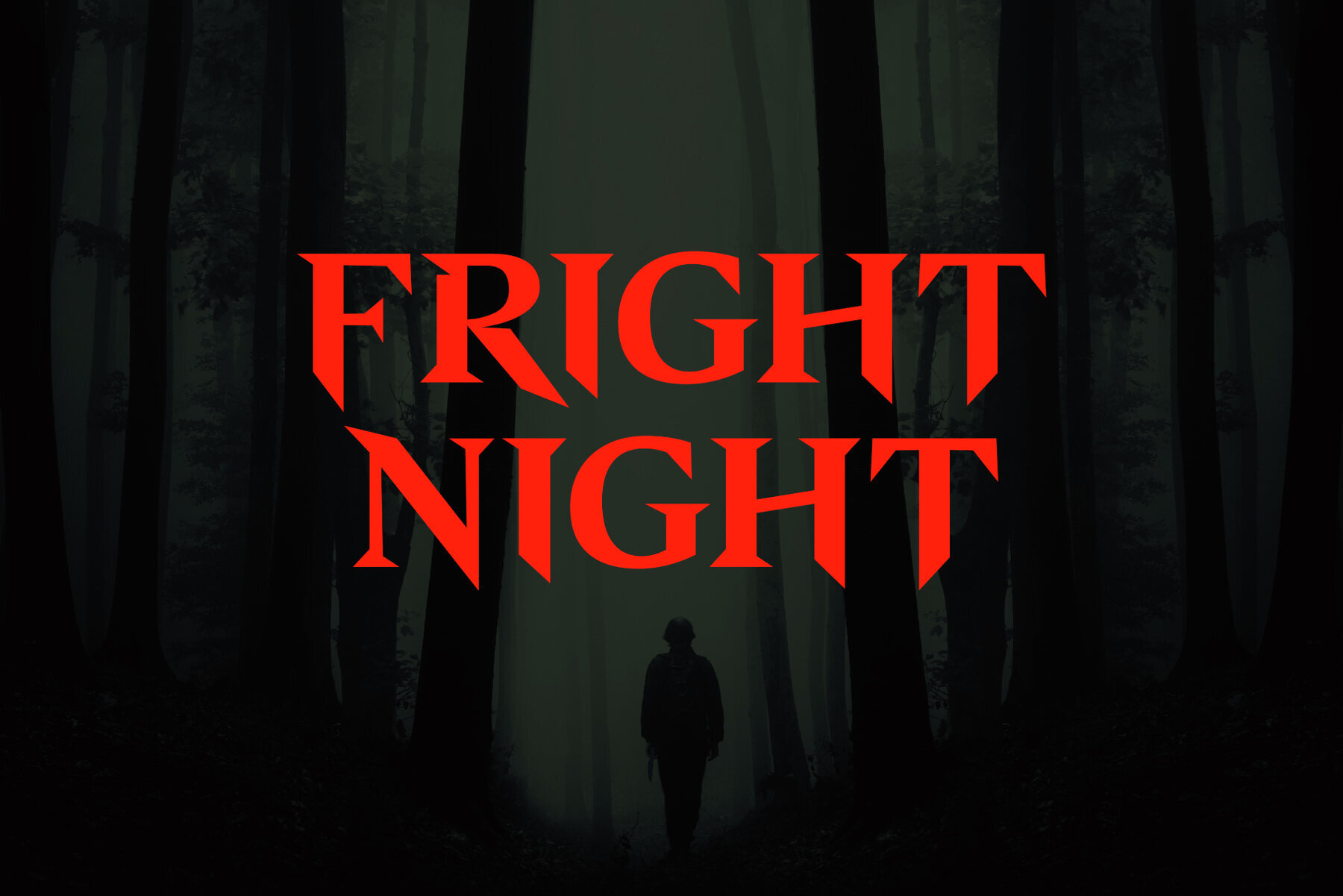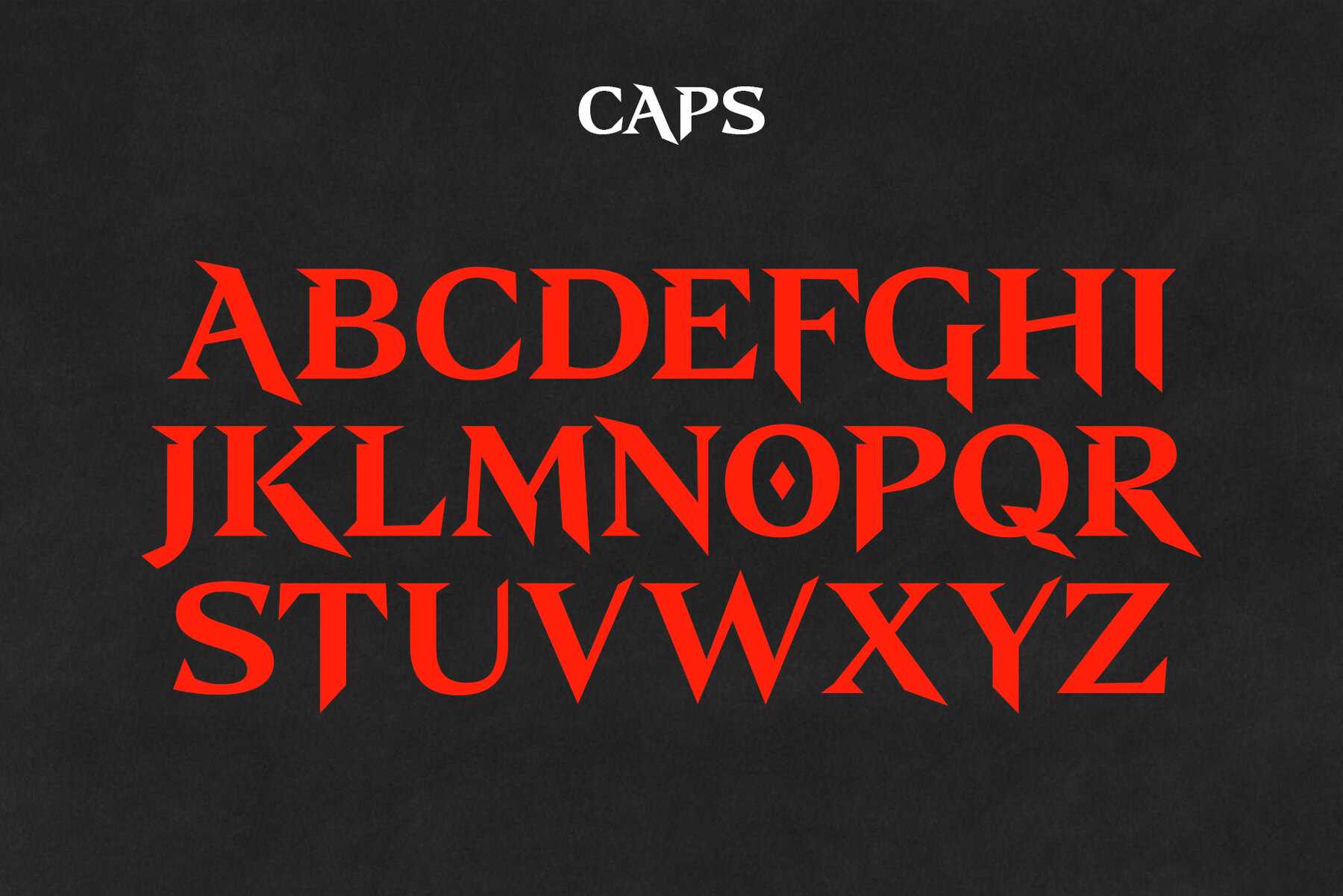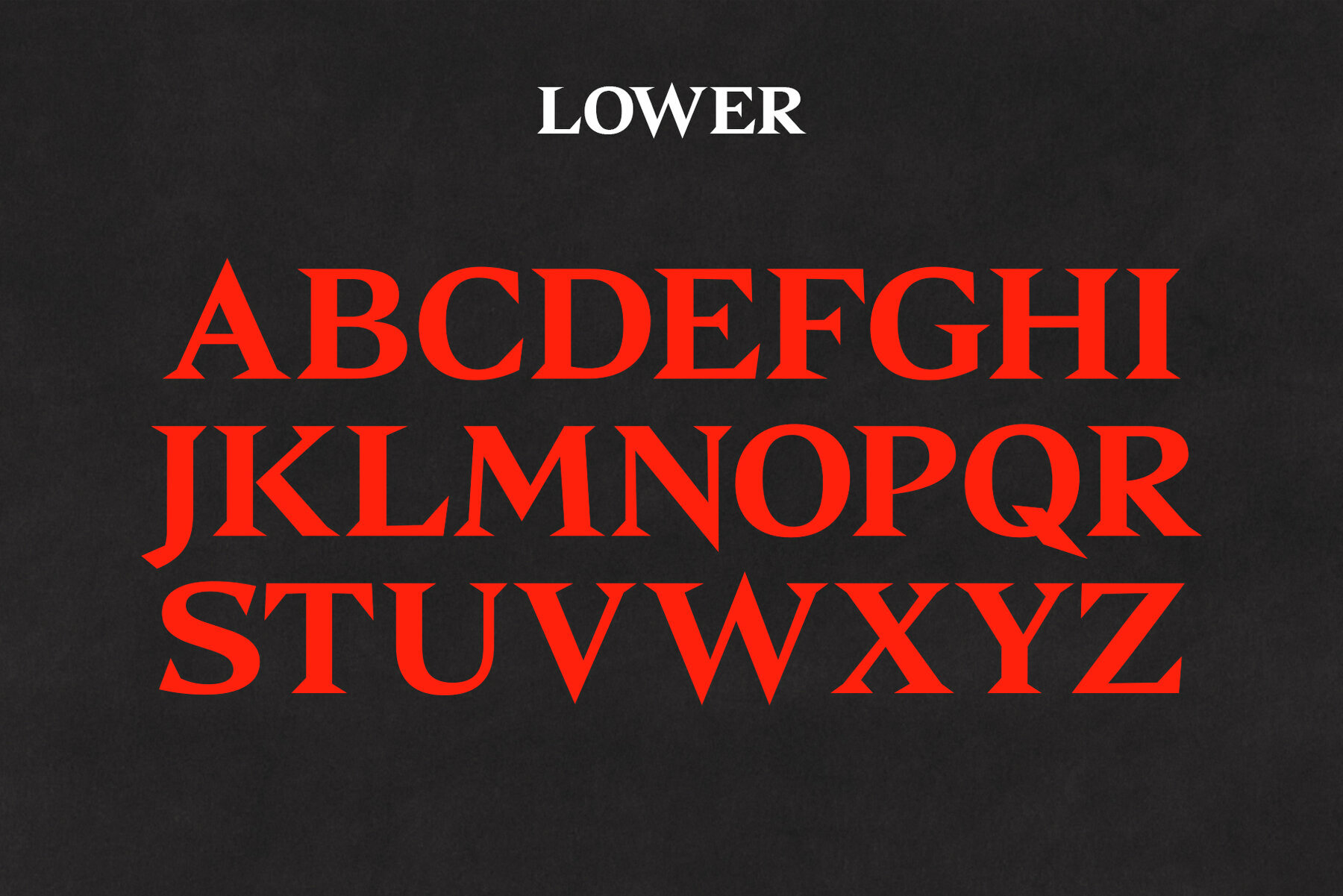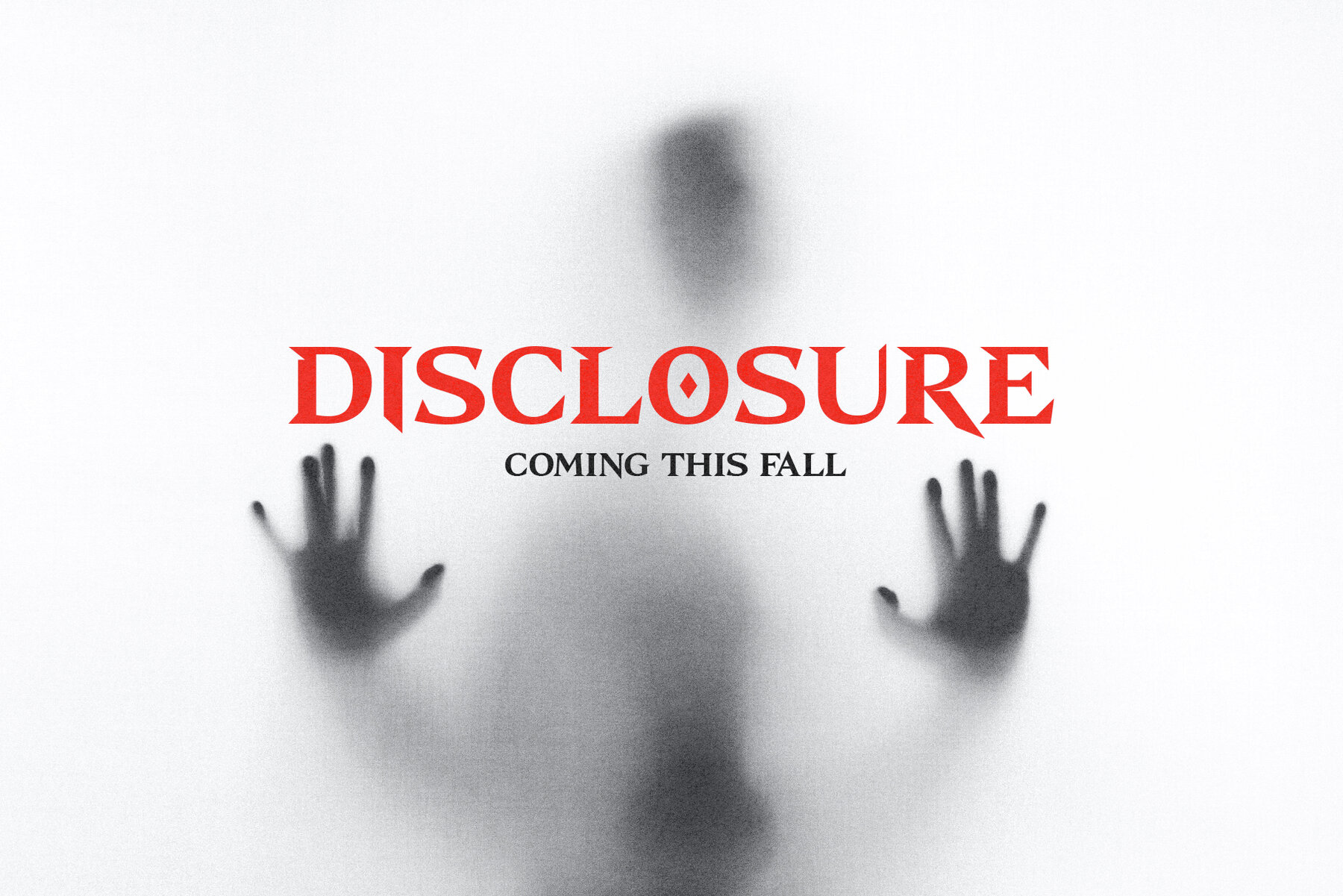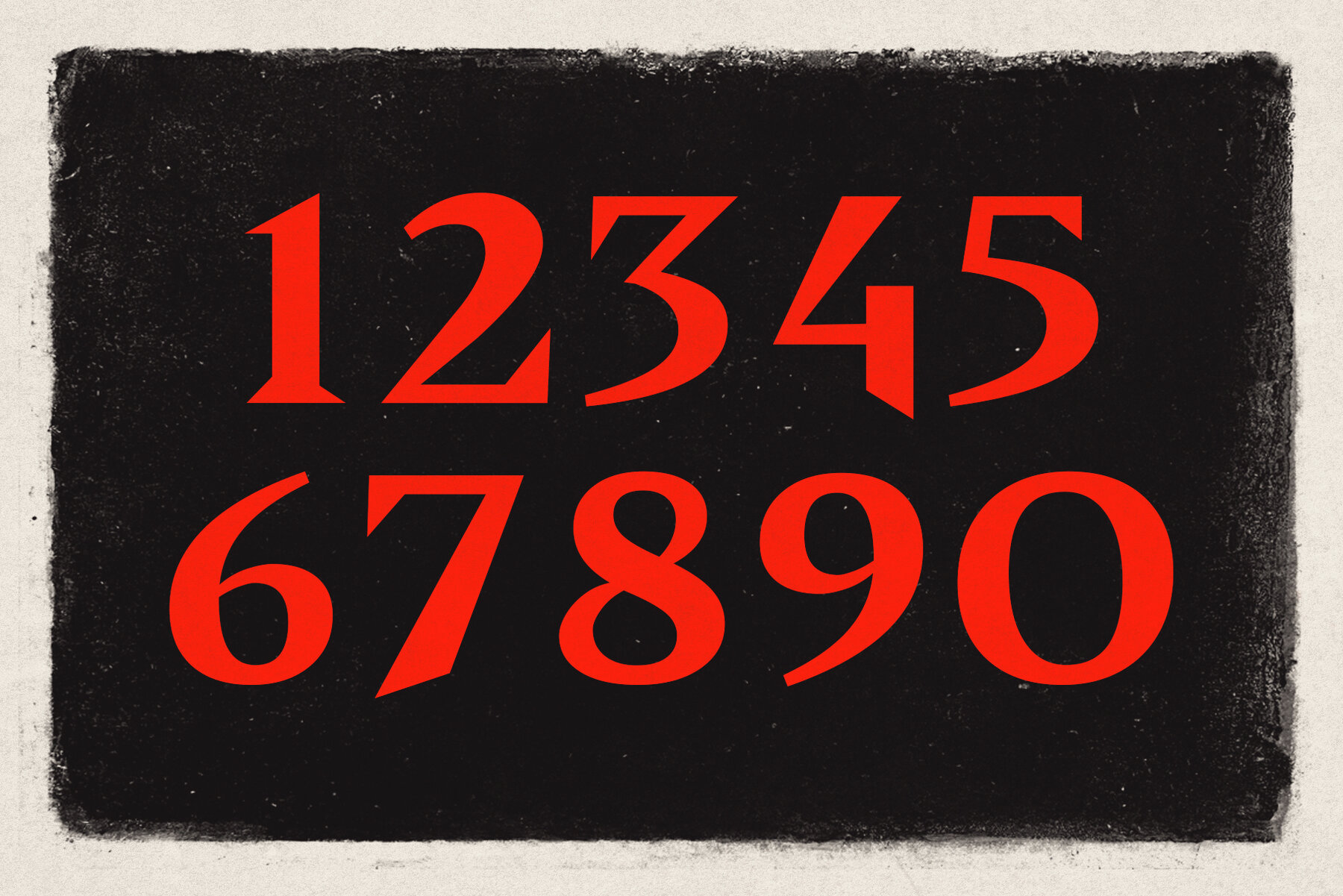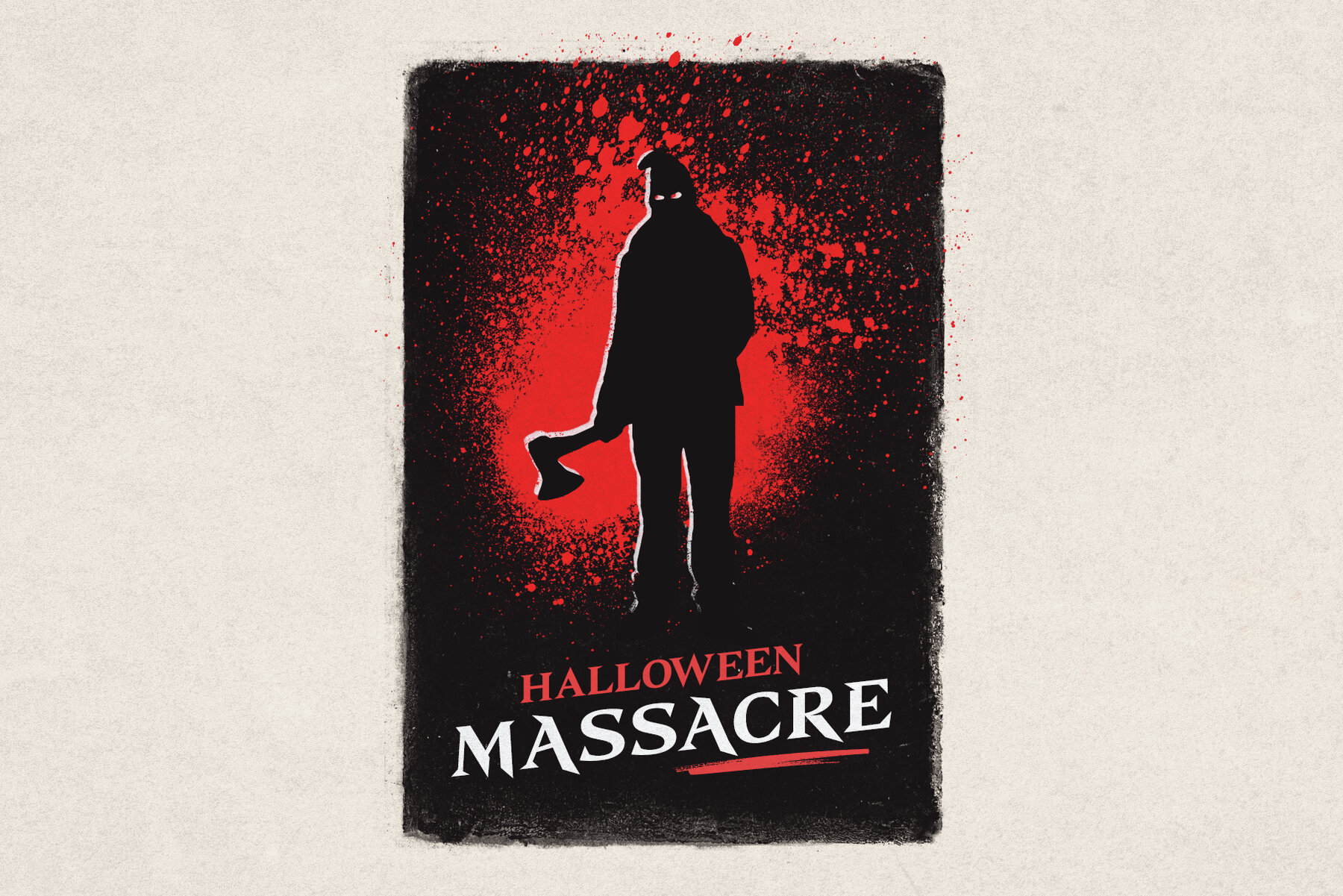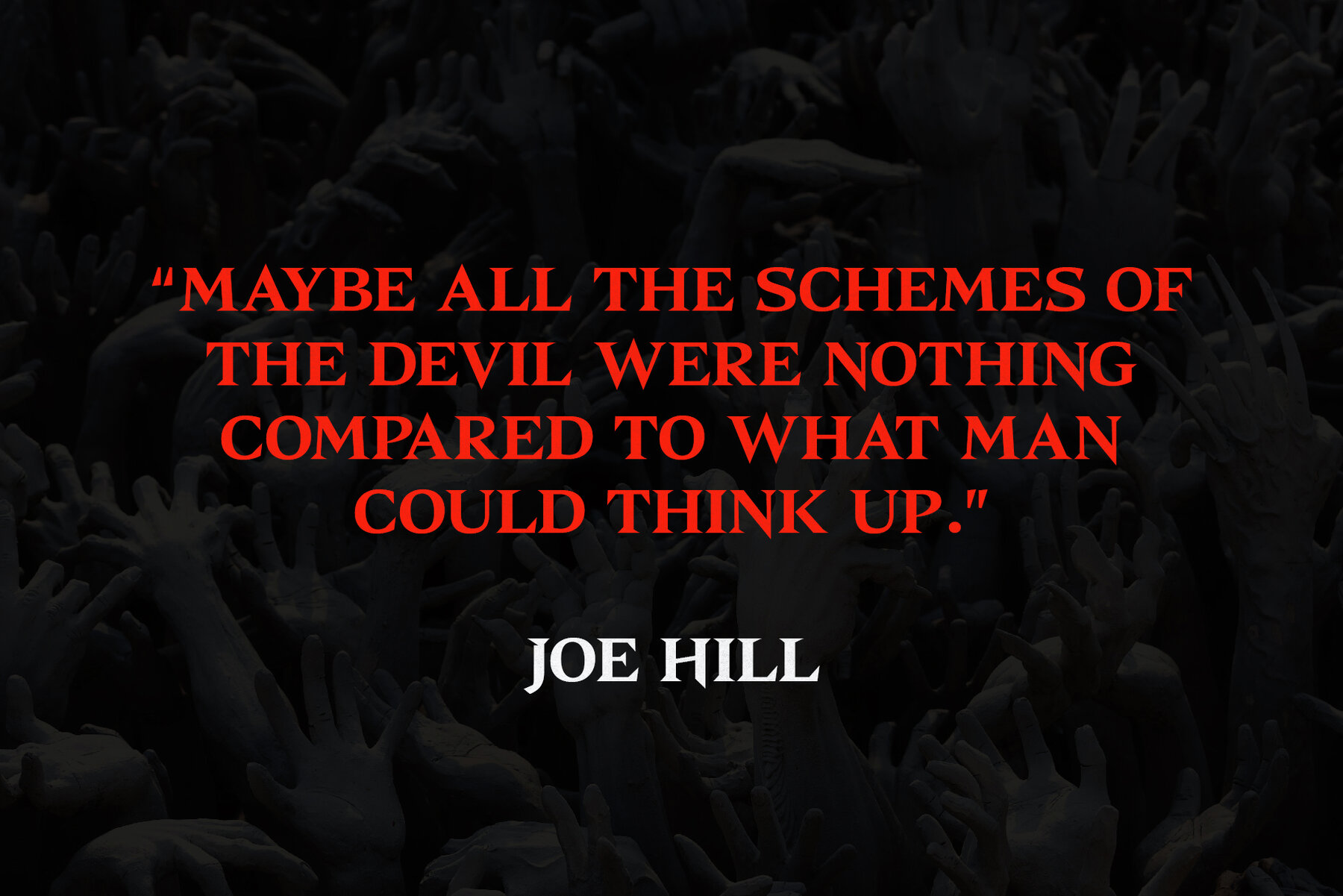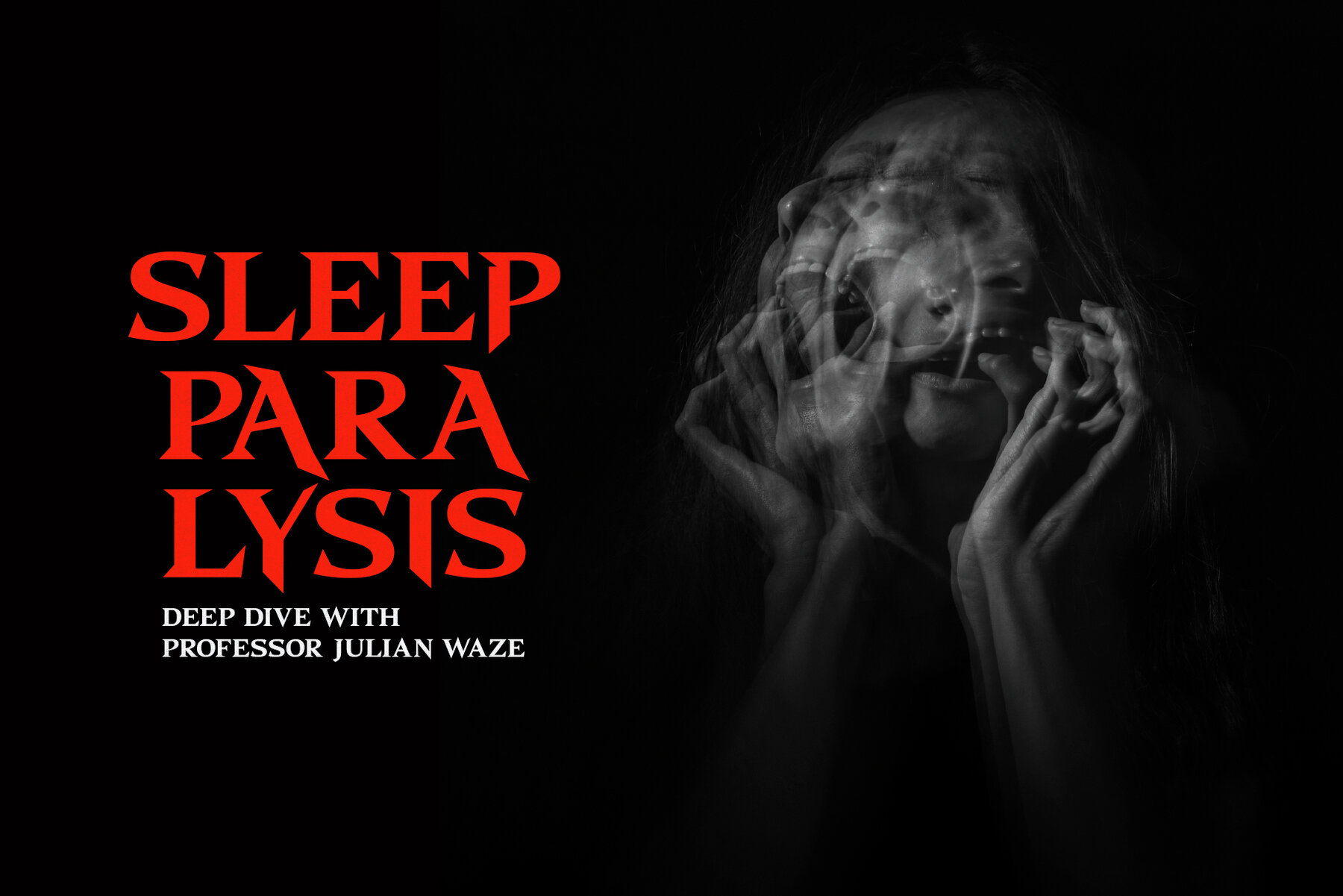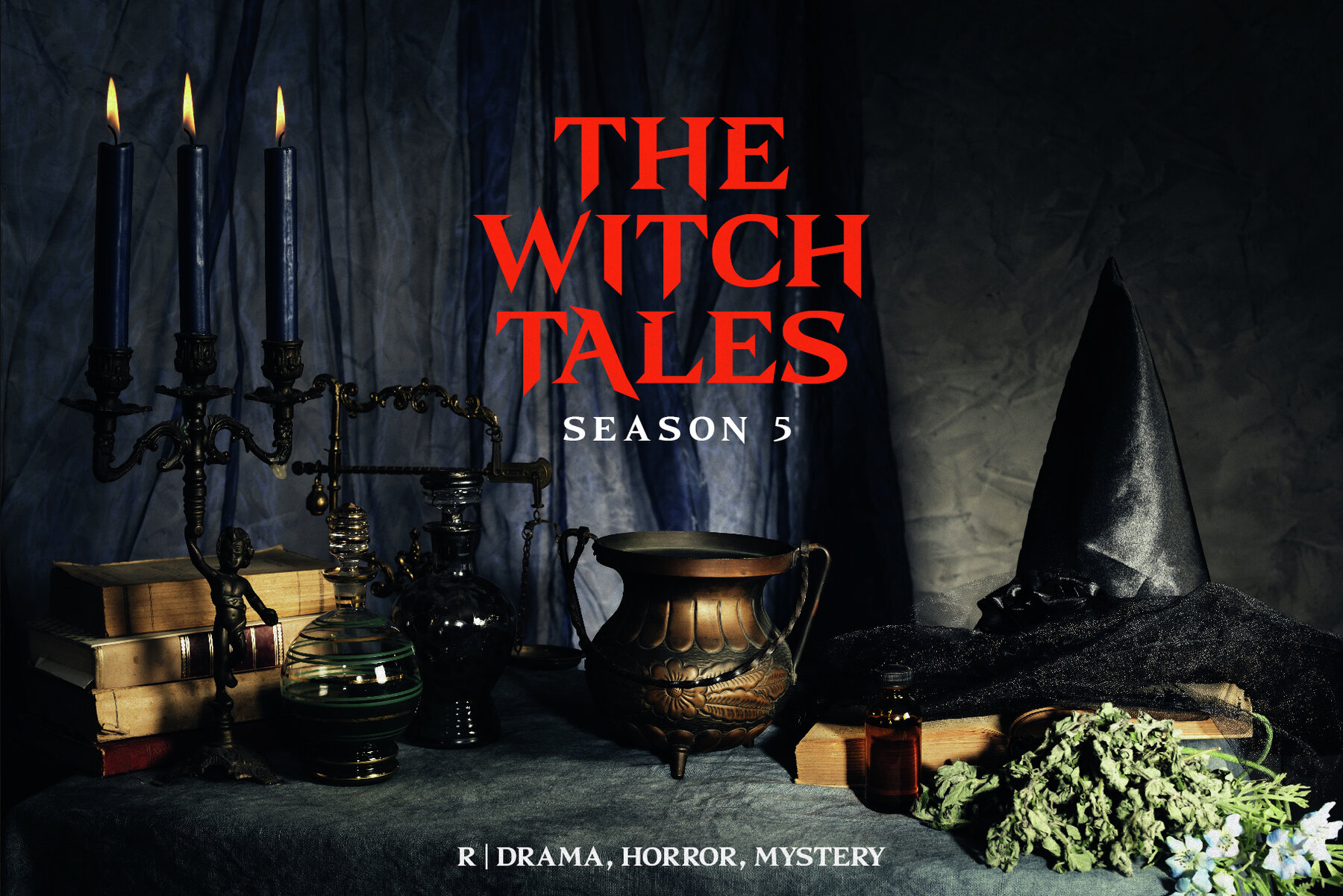
Fright Night Font
Fright Night Regular
Fright Night is a captivating serif typeface designed with a touch of horror, perfect for projects that need to convey suspense and intrigue. Its sharp, clean lines and unique design elements make it ideal for a wide range of applications such as posters, movie titles, billboards, and branding. This font packs an emotional punch, ensuring your designs will stand out and capture attention.
Whether you're designing business cards or larger promotional materials, Fright Night's distinct style will enhance your visual communication. The serif typeface adds a layer of sophistication while maintaining a chilling vibe, making it particularly suitable for Halloween-themed projects or any creative work that calls for a dramatic flair.